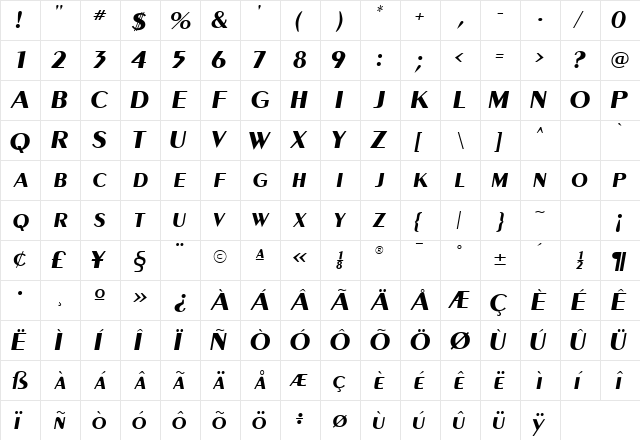
CarnatiSCapsSSK BoldItalic Font Preview
Design Context for CarnatiSCapsSSK Typeface
CarnatiSCapsSSK is a composed and adaptable typeface that performs quietly and consistently across a wide range of design contexts. The dynamic lean of this cut emphasises speed and emphasis in any layout. The heavy weight commands attention and anchors typographic hierarchies.
Pro Tip: Try CarnatiSCapsSSK for annotation and caption copy alongside an upright companion — the contrast in angle creates a dynamic but ordered typographic system.